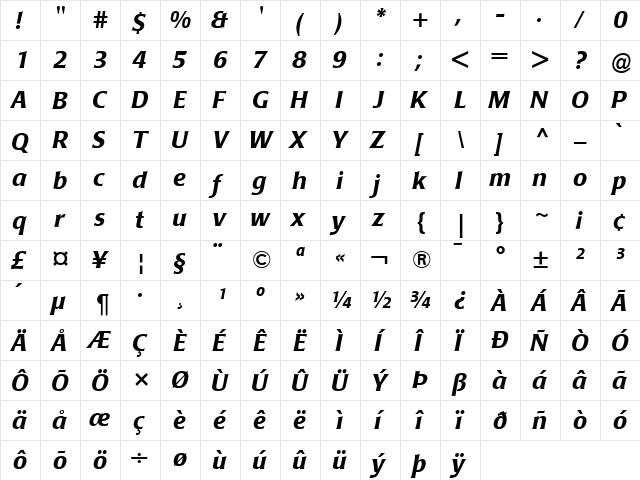
Poppl-Laudatio ItalicBold Font Preview
Poppl-Laudatio ItalicBold
Design Context for Poppl-Laudatio Typeface
Poppl-Laudatio offers clean, dependable letterforms without strong stylistic allegiance, making it a practical choice for designers who need flexibility. Its italic angle brings a sense of urgency and motion to the letterforms. The heavy weight commands attention and anchors typographic hierarchies.
Pro Tip: Use Poppl-Laudatio for emphasis, pull quotes, and subheadings where its slanted energy can add rhythm to the layout.